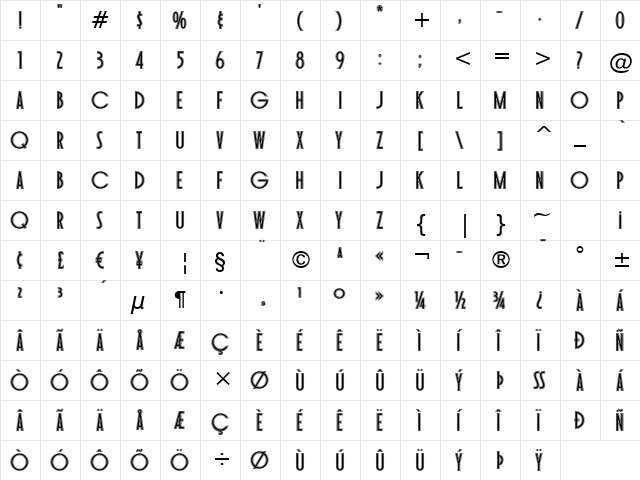
Toasted Vein BTN Inline Regular
Design Context for Toasted Vein BTN Inline Typeface
Toasted Vein BTN Inline brings ornamental detail and strong personality to headlines and identities, where visual impact matters more than quiet functionality.
Font Pairing: Pair with a clean neutral sans-serif for body copy to let Toasted Vein BTN Inline's character lead without overwhelming the composition.
Pro Tip: Treat Toasted Vein BTN Inline as the centrepiece of your typographic hierarchy. One strong heading set in a decorative face can carry an entire layout.